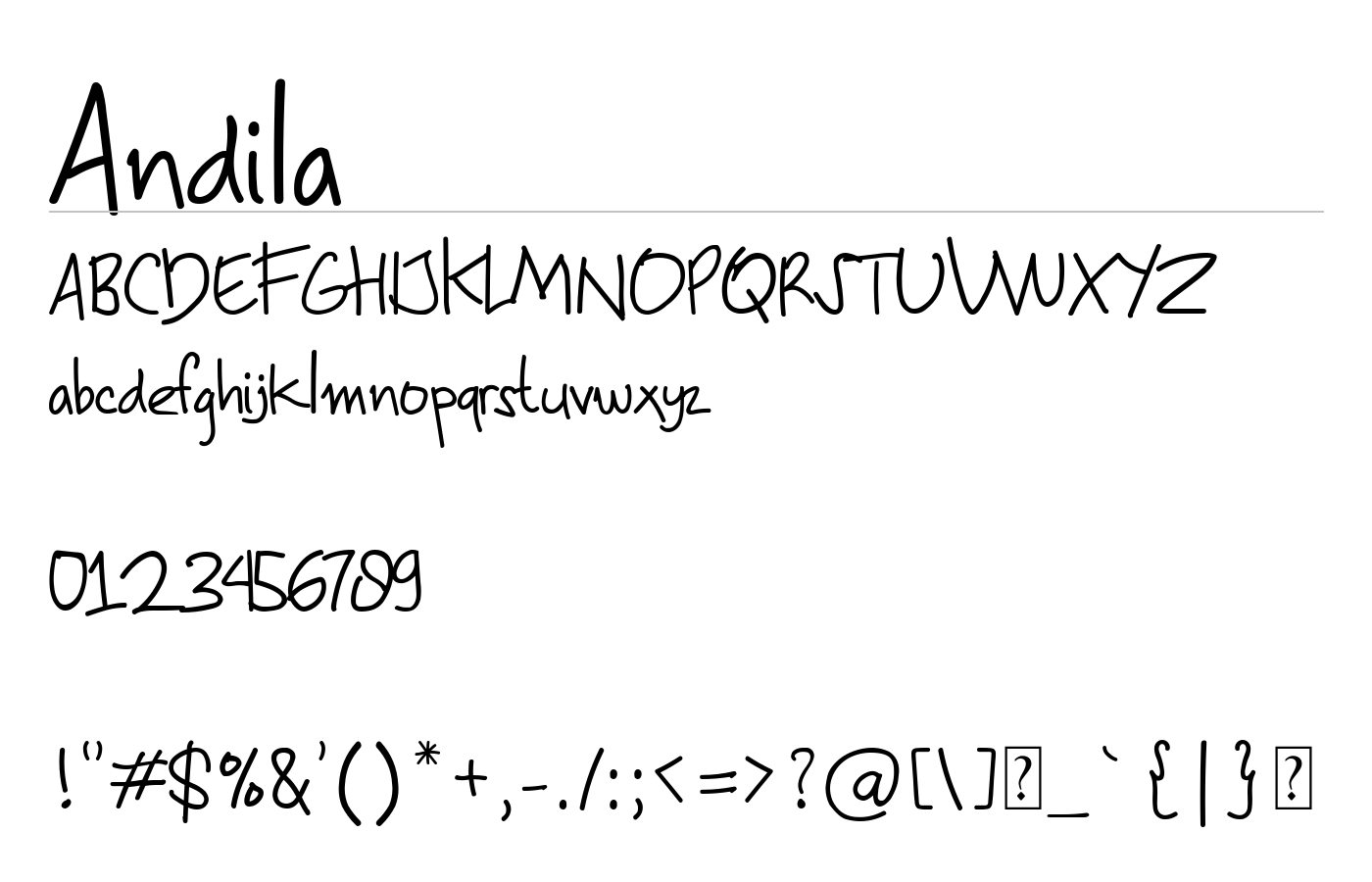
Andila is a playful, hand-drawn sans serif font that feels casual and friendly thanks to its irregular, thin strokes and lively letterforms. Its tall x-height and upright style give it good readability while maintaining a whimsical, approachable vibe, making it perfect for informal branding, children's books, or creative projects needing a personal touch. This font works well in logos, social media graphics, and headlines where a fresh, handwritten look is desired.
Andila Font
About Andila Font